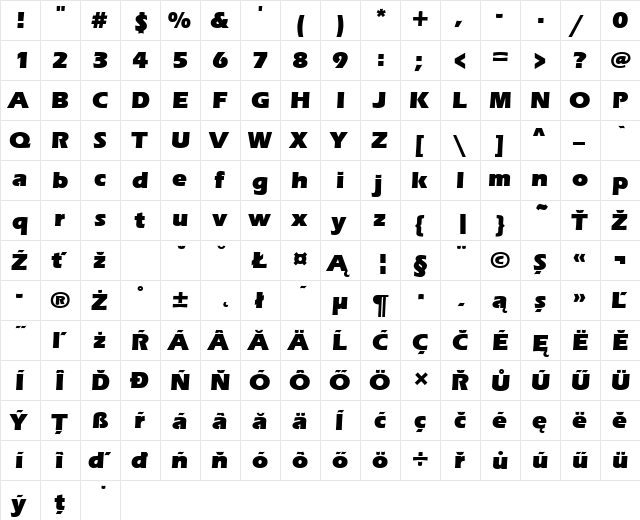
ErasItcTEEUlt Regular
Design Context for ErasItcTEEUlt Typeface
ErasItcTEEUlt takes a measured approach to typography — its balanced proportions and neutral character make it a reliable workhorse for both digital and print work.